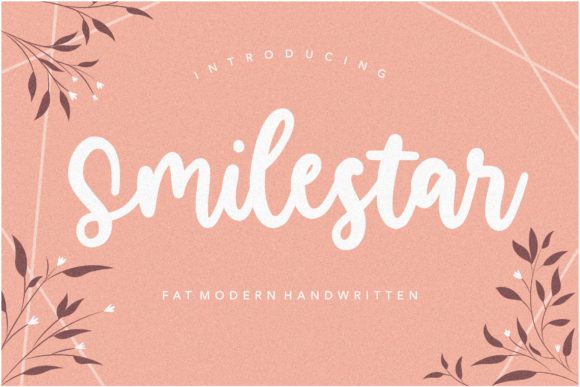
Introducing Smilestar Font, the Epitome of Creative Expression!
Embark on a Typographic Adventure with Smilestar, an Exquisite Handwritten Font from Balpirick.
Smilestar, a Script Font Family, Captivates with Its Effortless Charm and Alluring Personality.
Designed to Leave a Lasting Impression, Smilestar is the Perfect Choice for CV Designs, Adding a Touch of Sophistication and Originality to Your Professional Documents.
With Smilestar, Your CV Will Radiate Confidence, Making You Stand Out Among Competitors in the Job Market.
Elevate Your Designs with Smilestar's Fluid Strokes and Graceful Curves, Creating Visual Harmony and Elegance.
Smilestar's Versatility Extends Beyond CVs, Lending Its Beauty to Logos, Branding, Invitations, and Social Media Graphics.
Unlock Endless Creative Possibilities with Smilestar as Your Artistic Ally, Transforming Ordinary Designs into Extraordinary Masterpieces.
Smilestar, the Quintessence of Refinement, Invites You to Experience the Joy of Handwritten Elegance in the Digital Realm.
Witness the Transformation of Your Creative Vision into Reality with Smilestar, Your Trusted Companion in the World of Typography.